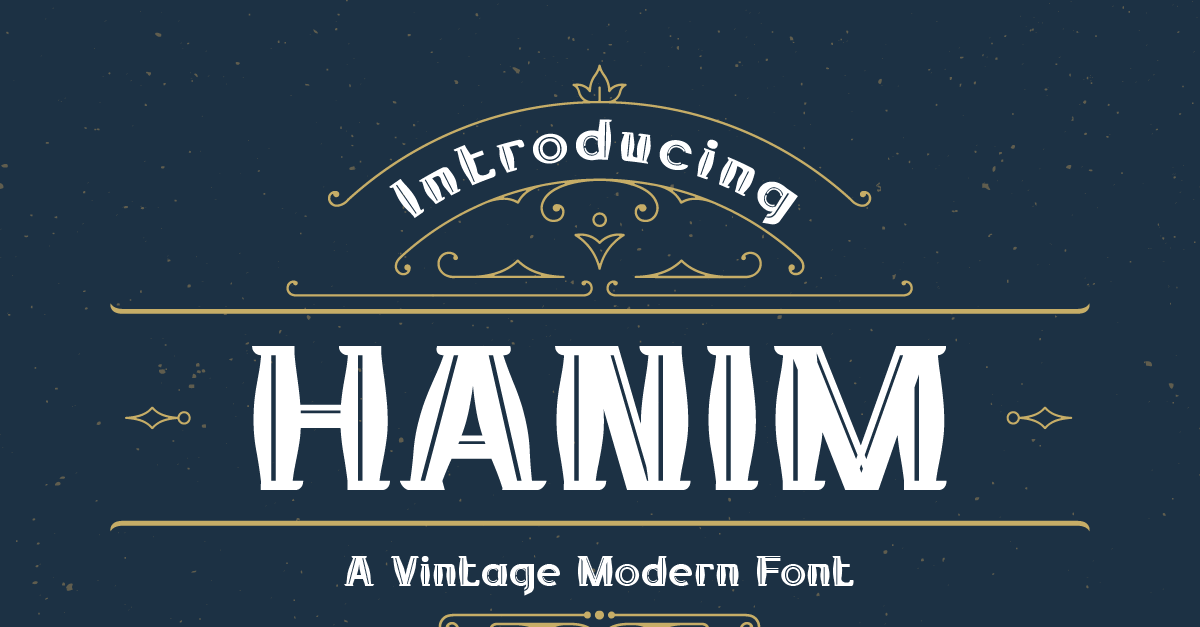
Hanim - Vintage Modern Font
Introducing Hanim font, the perfect blend of modern and vintage aesthetics! With its sleek lines and elegant curves, this font is sure to catch the eye of anyone looking for a sophisticated yet trendy design. Hanim font is perfect for a variety of applications, from branding to editorial design. Its versatility and unique character will add an extra level of charm to any project. Don't miss out on the opportunity to elevate your design with Hanim font. Get it now and experience the perfect balance of modern and vintage in one font!